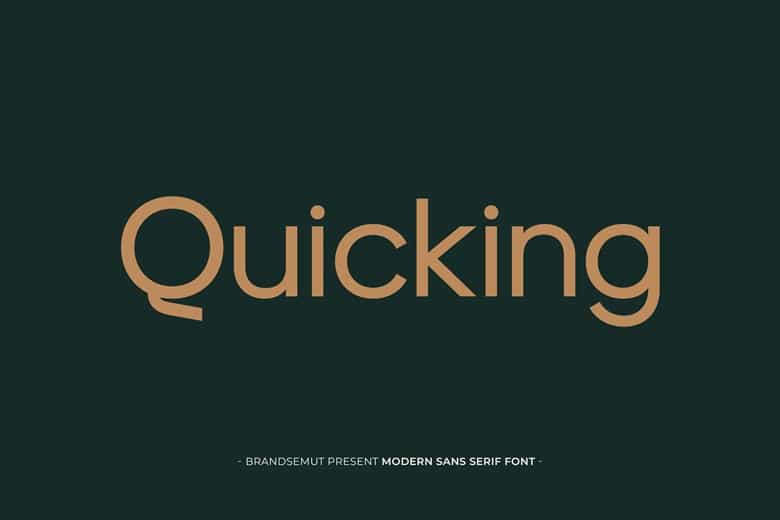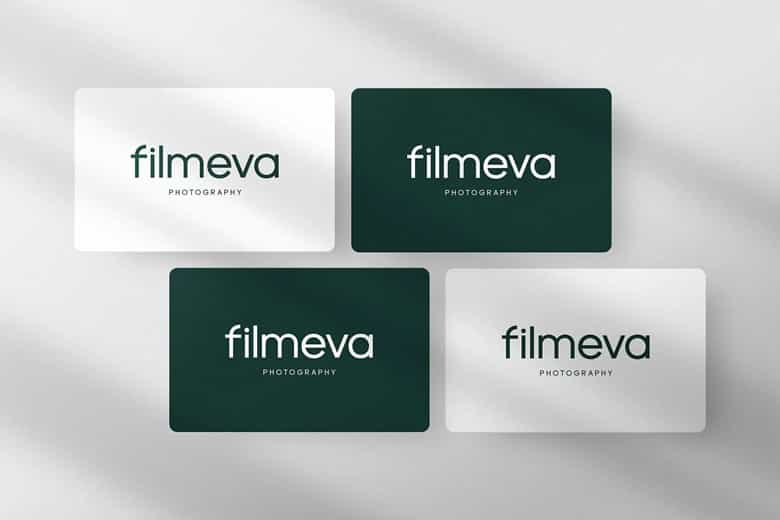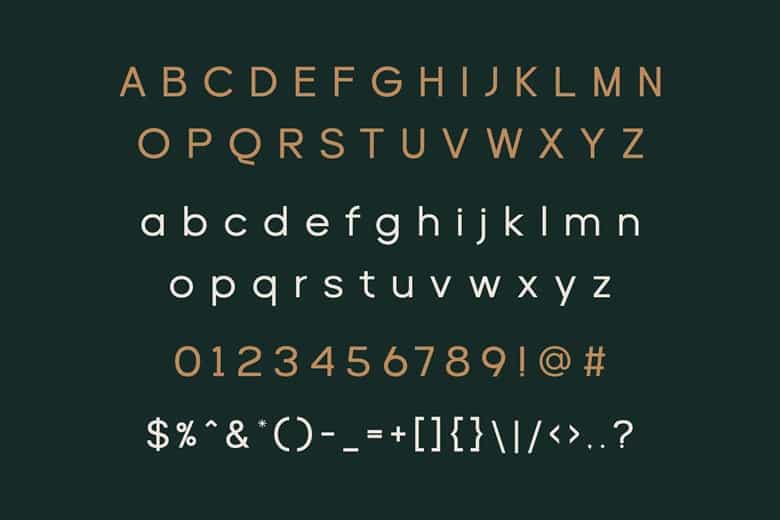
Quicking is a new and modern sans serif typeface, best used as a display for headings, logos, branding, magazines, product packaging and invitations. Quicking come with clean lines and smooth curves give any project an extra touch of class.